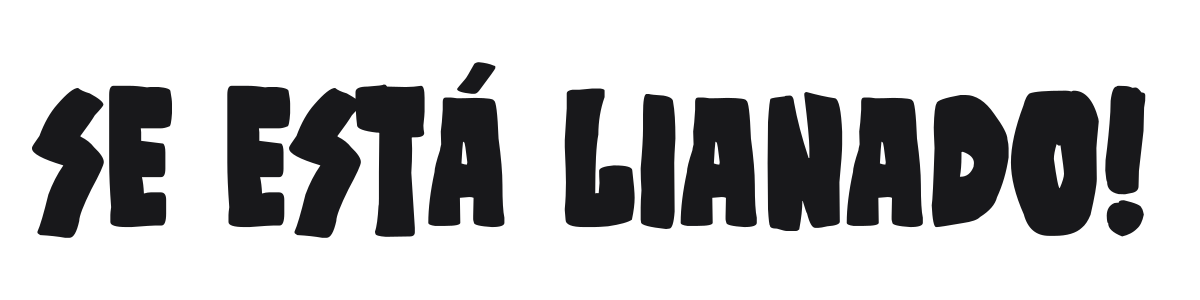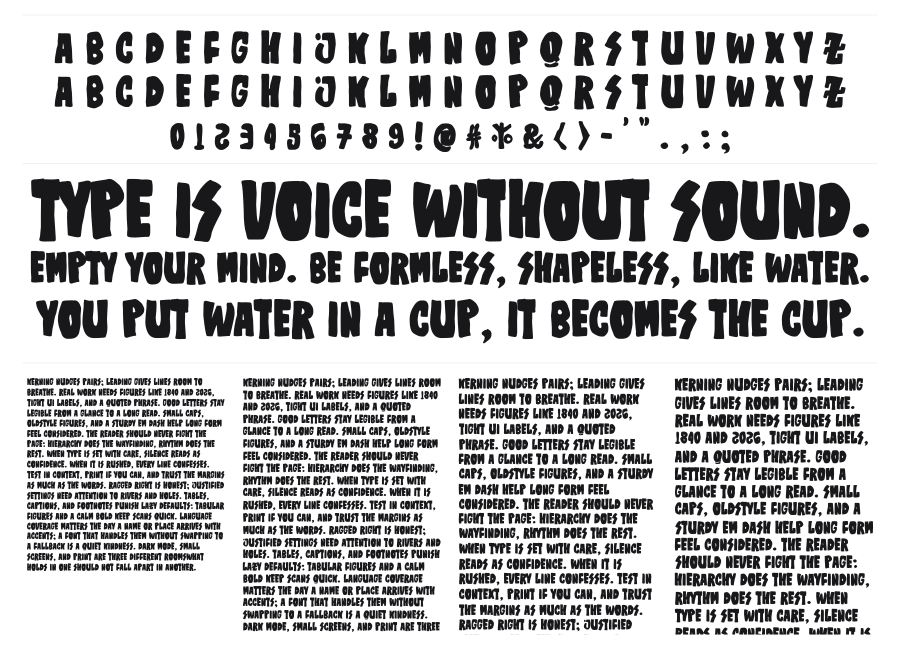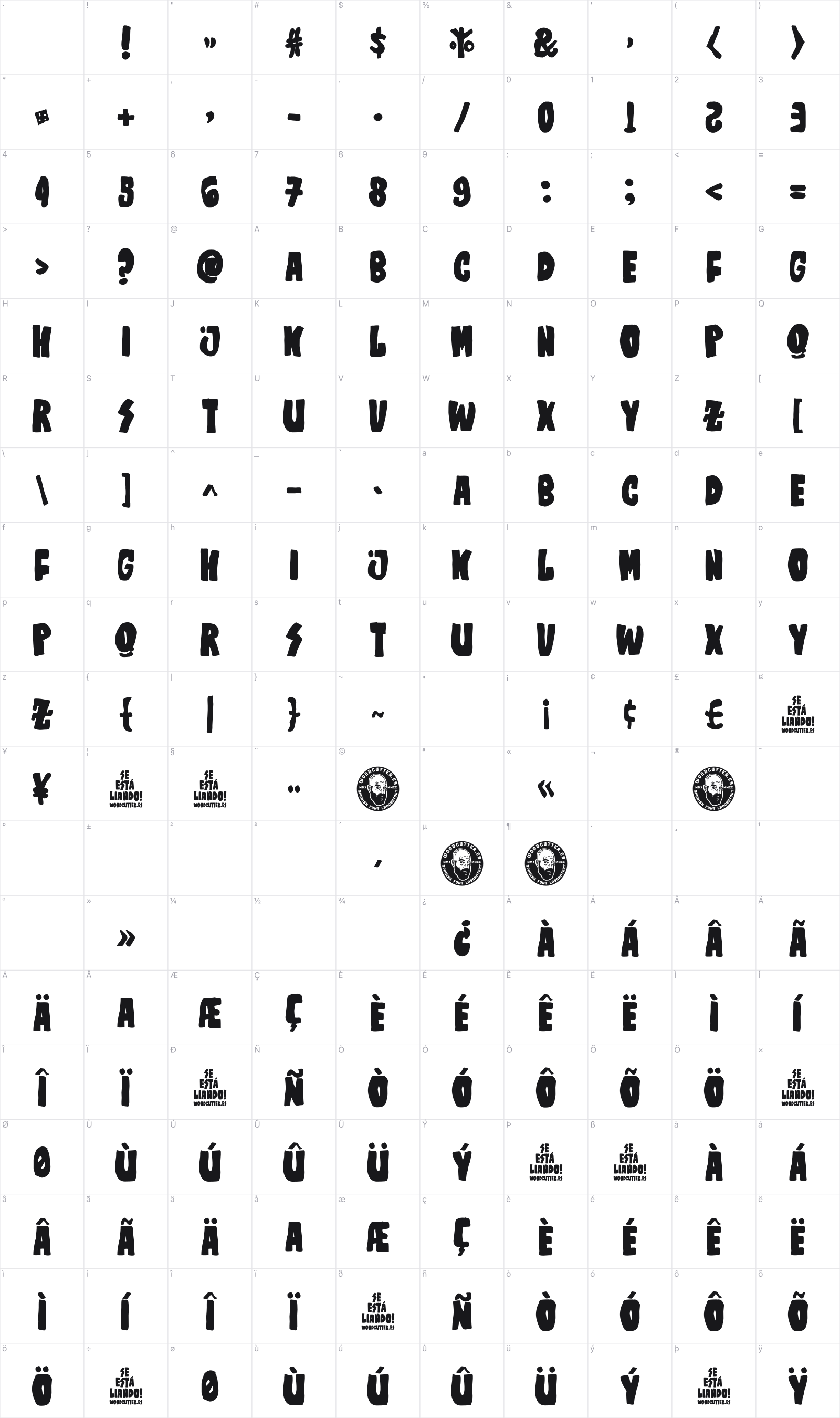
Se está lianado!
Se está lianado! is a heavy distressed display font by Woodcutter Manero with thick, wobbly characters that look hand-painted and slightly melted. The rough edges and irregular outlines give it an anarchic, street-art energy that commands attention. It works best large, where the textural chaos reads as personality rather than noise.